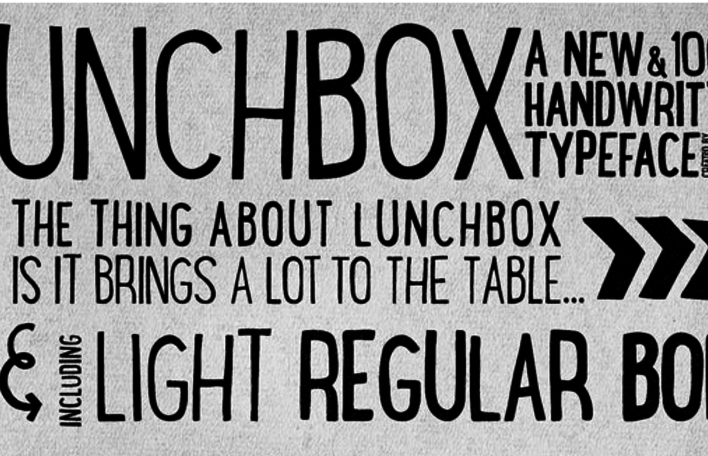
Have you ever had to eat your words? Well, if you’re using the right font, that can be easier than you’d think. Take a look at the scrumptious Lunchbox Typeface by Kimmy Design! This tasty morsel of a font offers over 1,500 different characters to build an unlimited number of letter combinations. Hand-drawn and somewhat sketchy, Lunchbox is a true delight for all the senses. This quirky font offers so many different options that it really comes across as 4 fonts in 1.